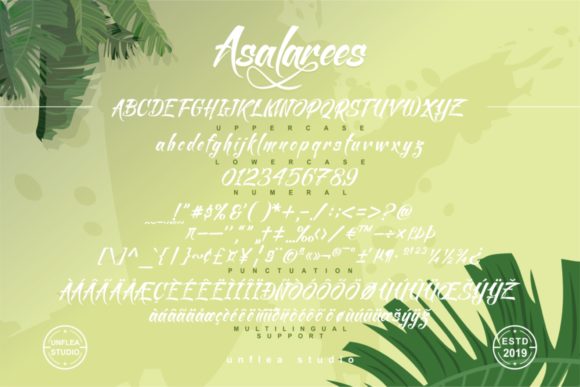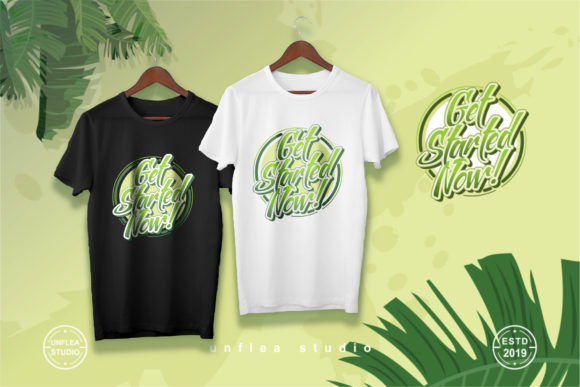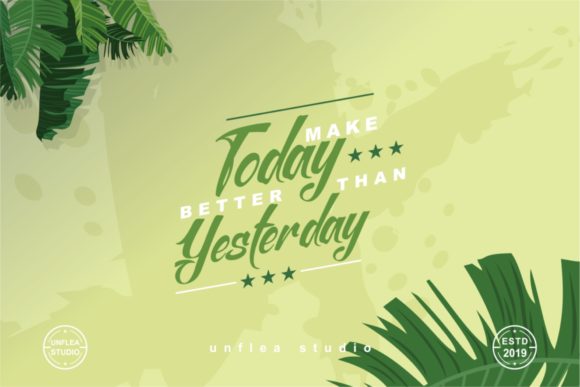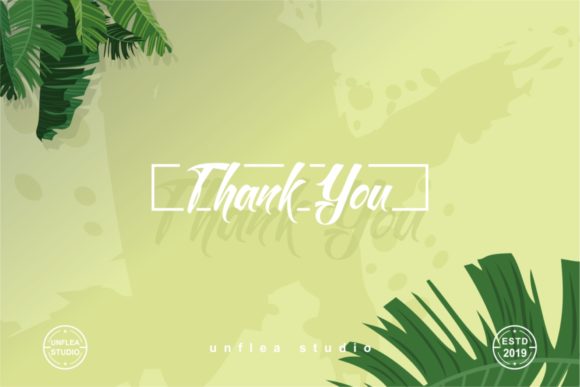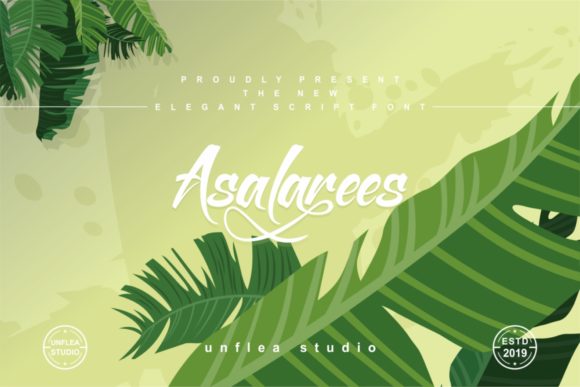
Introducing Asalarees Font: The Epitome of Modern Calligraphy
In the realm of typography, few fonts have managed to capture the essence of modern calligraphy as elegantly as Asalarees. This stunning font is a masterpiece of contemporary design, boasting an original handwritten look and feel that is sure to inspire designers and crafters alike. With its unique blend of sophistication and playfulness, Asalarees is poised to revolutionize the world of typography.
The Birth of Asalarees
Asalarees is more than just a font – it’s a work of art. Crafted with precision and passion, this modern calligraphy font is designed to evoke emotions and spark creativity. Its original handwritten look and feel are a testament to the skill and craftsmanship of its creator, who has poured their heart and soul into bringing this beautiful font to life.
What Sets Asalarees Apart
So, what makes Asalarees stand out from the crowd? Here are just a few features that set this font apart:
• Unique Handwritten Look: Asalarees boasts an original handwritten look that is both elegant and approachable. Its flowing lines and subtle imperfections give it a human touch that is hard to resist.
• Modern Calligraphy Style: This font is firmly rooted in modern calligraphy, with a focus on clean lines, simple shapes, and a dash of creativity.
• Contemporary Appeal: Asalarees is designed to appeal to modern designers and crafters who are looking for a font that is fresh, exciting, and versatile.
Uses for Asalarees
Asalarees is an incredibly versatile font that can be used in a wide range of applications, including:
• Branding and Advertising: Use Asalarees to create stunning logos, advertisements, and marketing materials that are sure to grab attention.
• Graphic Design: Add a touch of elegance to your graphic designs with Asalarees, perfect for creating stunning posters, flyers, and brochures.
• Crafting and Scrapbooking: Asalarees is a dream come true for crafters and scrapbookers, adding a personal touch to handmade cards, gift tags, and other paper crafts.
Tips for Using Asalarees